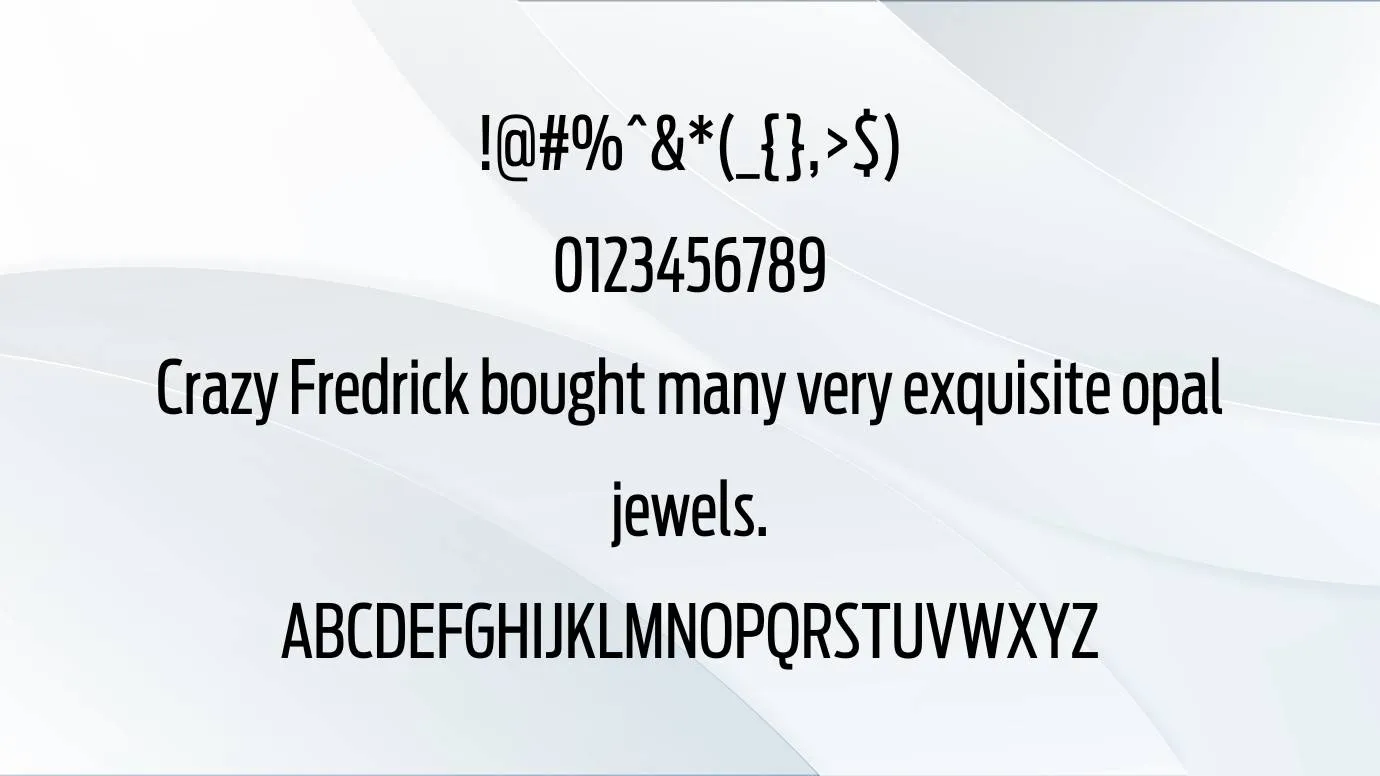
Hey, buddies today we are going to introduce you to a typeface known as Ford Antenna Font, which is a fascinating typeface that we are presenting today. According to font categories, this typeface is a sans-serif typeface. The responsibility for creating and releasing this exceptional typeface fell to Cyrus Highsmith.
This font is available from the Occupant Fonts Foundry. It features numerous remarkable text styles and distinctive glyphs. In the font family, it provides an amazing appearance and fantastic elegant style. It is becoming well-known all over the world thanks to its fashionable appearance.
Its partially combined characters give your design a distinctive appearance. Any task involving structure or design is ideal for it. This typeface has excellent characteristics and a smooth texture. Numerous typefaces, including avenir font and helvetica neue font, are comparable to this one due to their flexible characters.
Because of this, it is extremely well-known among font families. Due to its sharp features, it is more alluring and captivating. You are free to use its online generator tool if you need to create graphics without downloading the zip file.
This is how this typeface looks. The sans-serif font family includes the Ford Antenna Font. It features an exquisite design and a distinct feel. You can glance it over and utilize it for your project.
Few Examples of Ford Antenna Font Usage
This sans-serif typeface can be used to create beautiful artwork, posters, book covers, and many other designs for related items. The creation of magazines, newspapers, presentations, paperwork, invoices, and other types of documents are best suited for it. This typeface has a lot of features in both True Type and Open Type formats.
This typeface is also excellent for creating a variety of cards, including greeting cards, gift cards, invitation cards, wedding cards, and many more. This font can also be used in a variety of settings, including advertisements, templates, themes, Powerpoint presentations, website designs, blog designs, logo designs, newspaper headlines, and logo designs.
The process of developing apps and software works best with this typeface. You can give your text a stunning appearance by using this lovely typeface. You are also employable for articles, quotes, invoices, and title purposes.
View of Ford Antenna Font
NameFord Antenna Font
DesignerCyrus Highsmith
StyleSans-serif
Can I create logos using the Ford Antenna Font?
Yes, you are welcome to use this typeface with a soft appearance in your logo designs. You can make fantastic logo designs for personal pages, blogs, and websites by utilizing this typeface. Additionally, it works best for official logos.
Ford Antenna Font is what kind of font?
The largest Sans-serif typeface in the font family is this magnificent font. Cyrus Highsmith created it and published it.
What typeface resembles the Ford Antenna Font?
This typeface is similar to many Sans-serif fonts, including Futura, Circular, Nexa, Lato, Roboto, and many others.